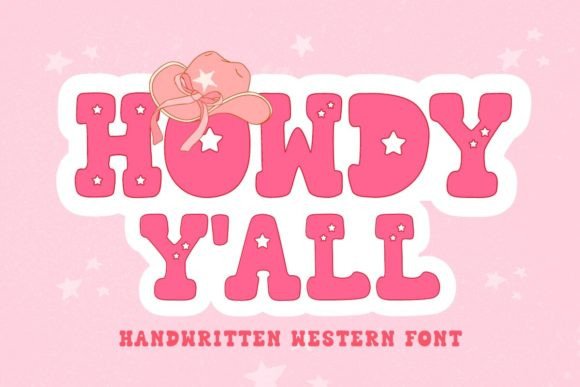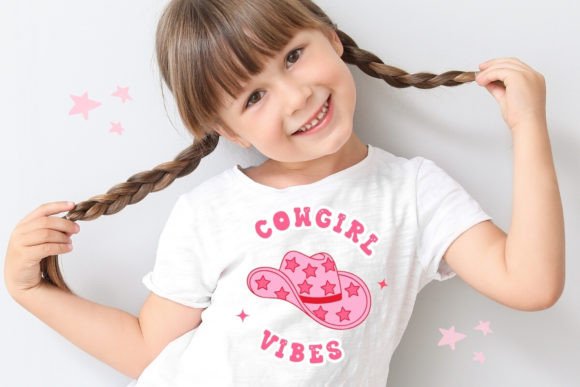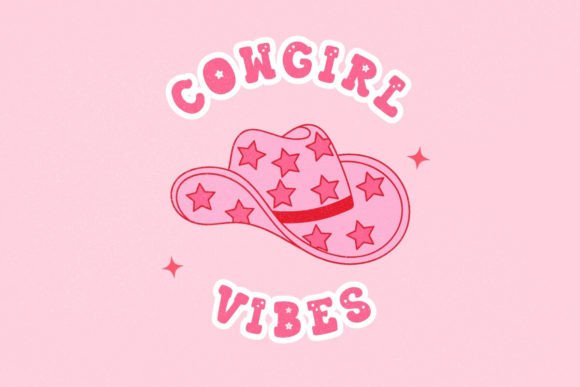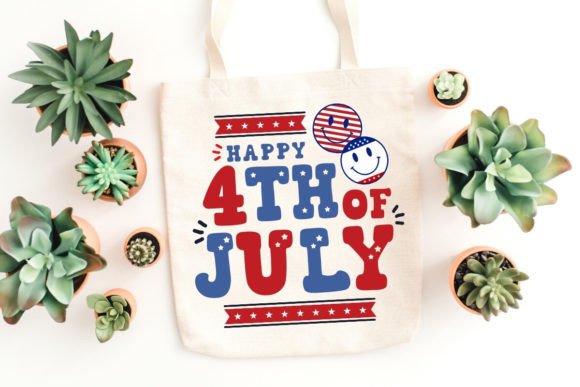
Howdy Y'all Font
Yeehaw! Introducing “Howdy You All Font,” a cute, western-themed, funny, serif and bubbly handwritten font that brings a touch of cowgirl charm and playful fun to every project. Perfect for social media, logos, advertisements, fashion, stickers, kids’ products, packaging designs, shirt designs, and more, “Howdy You All” offers a unique blend of western whimsy and adorable style that will make your designs stand out.With its fun and approachable style, “Howdy You All” is especially suited for children’s products and fashion designs, making it perfect for packaging, stickers, clothing, and more.